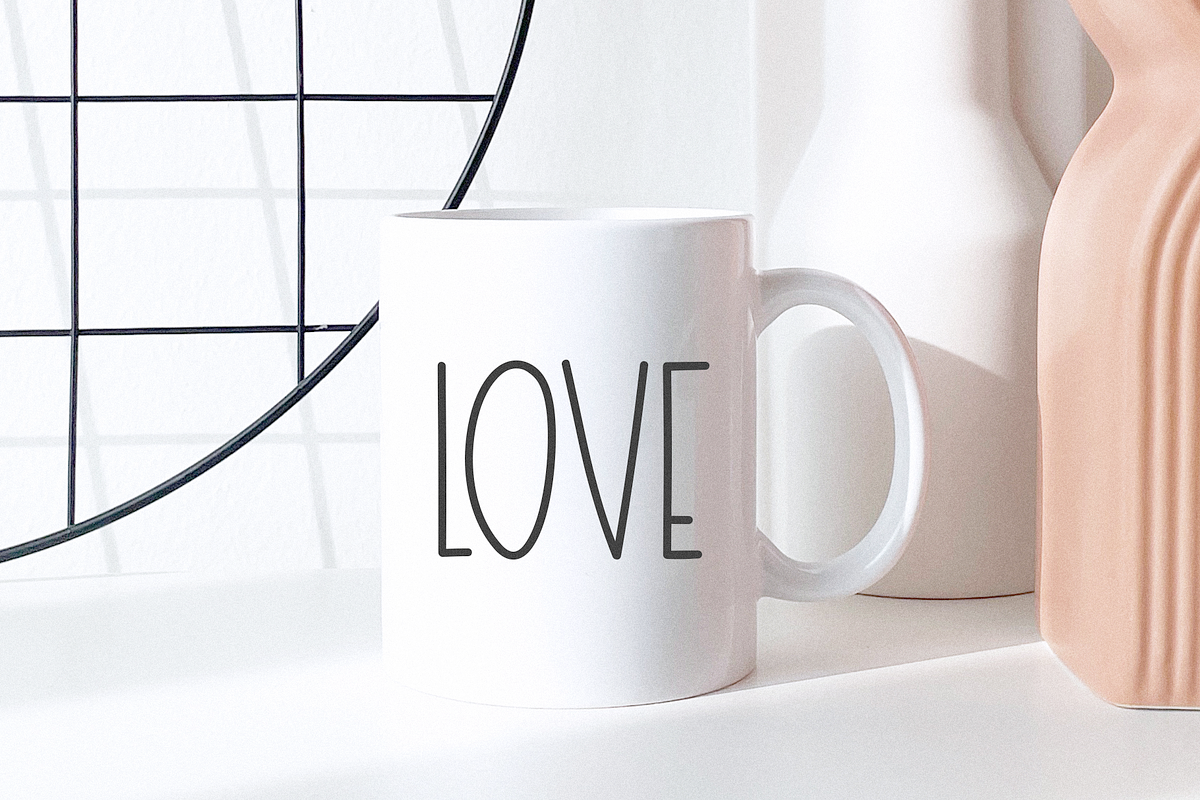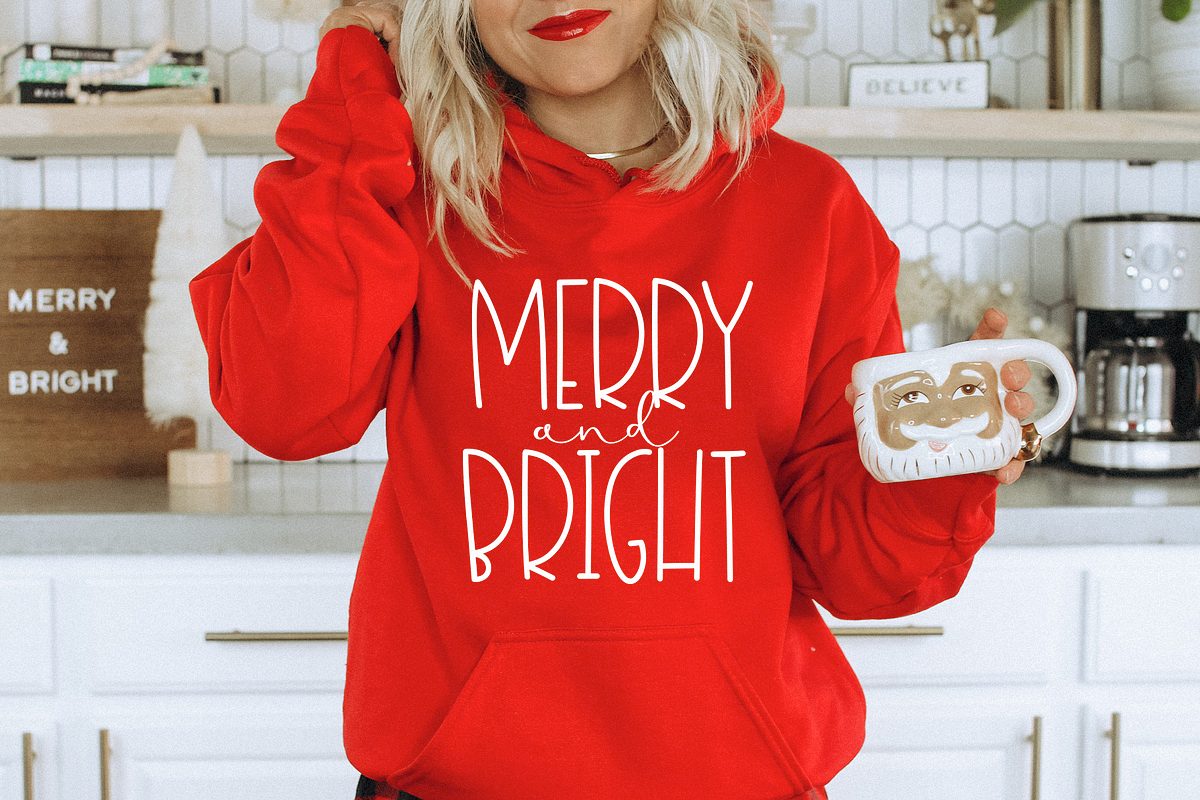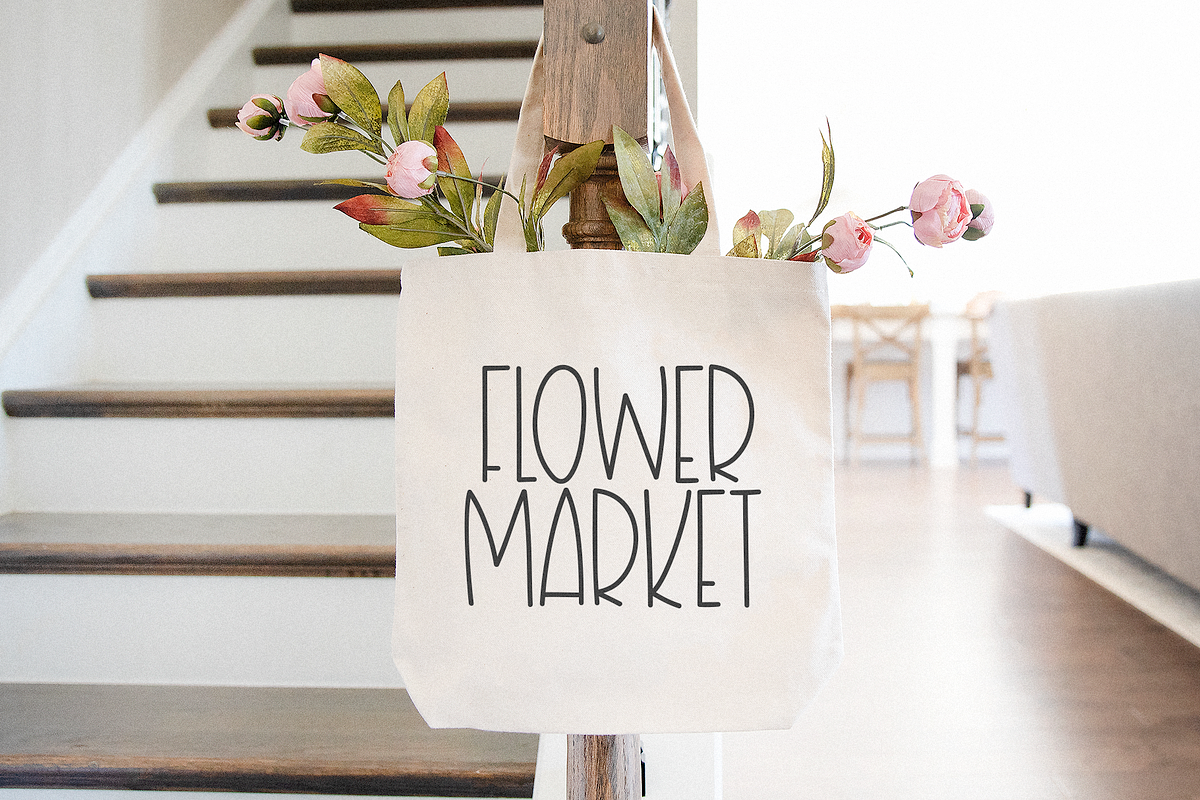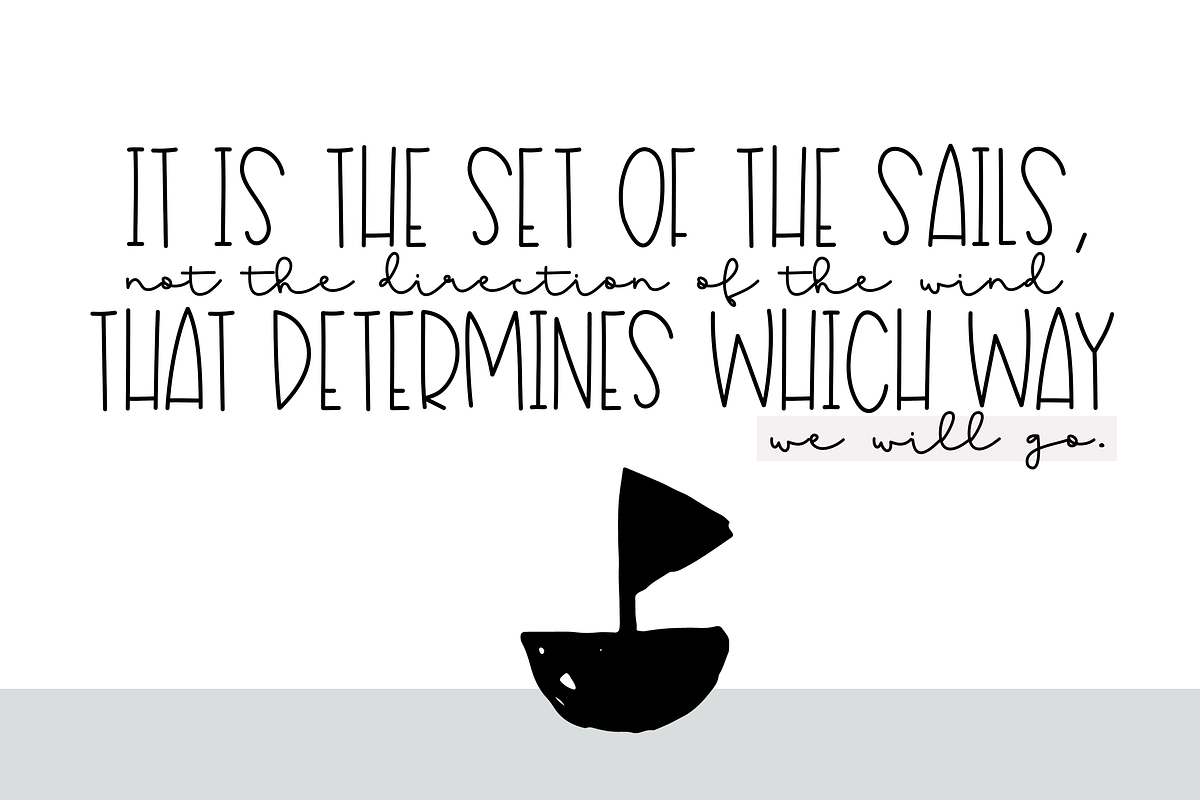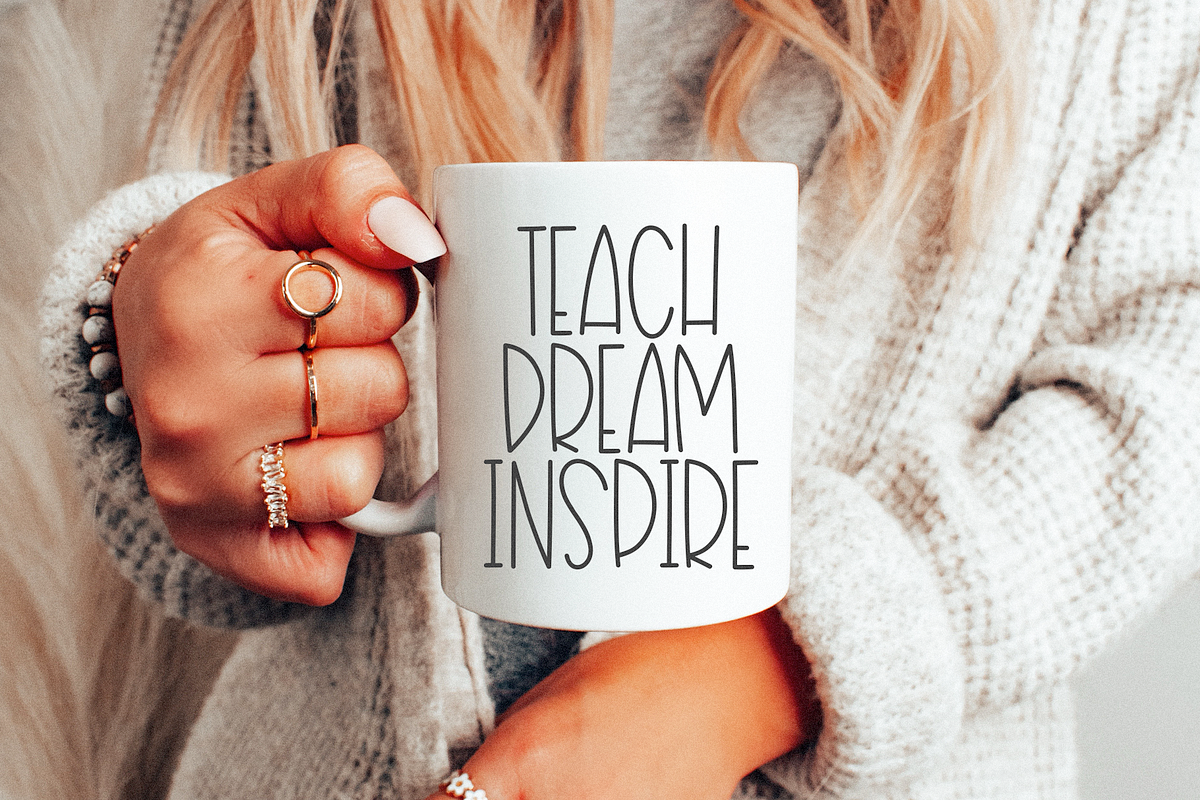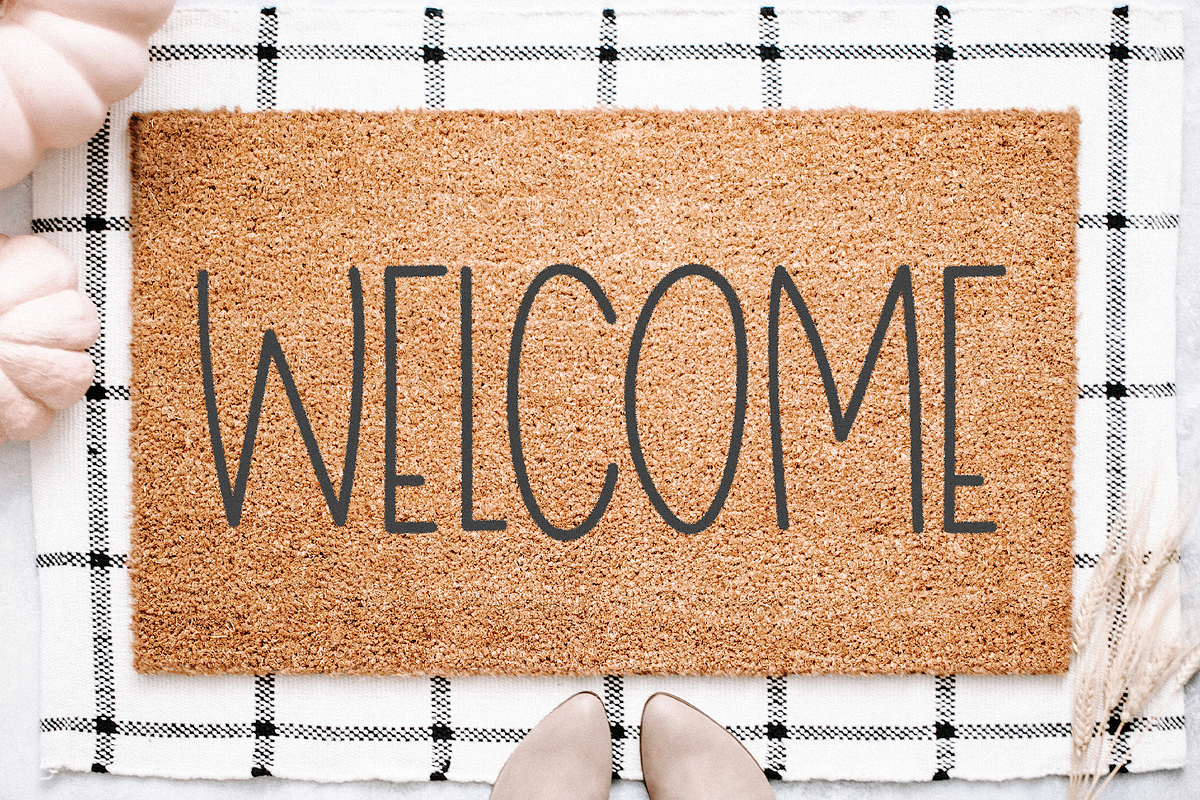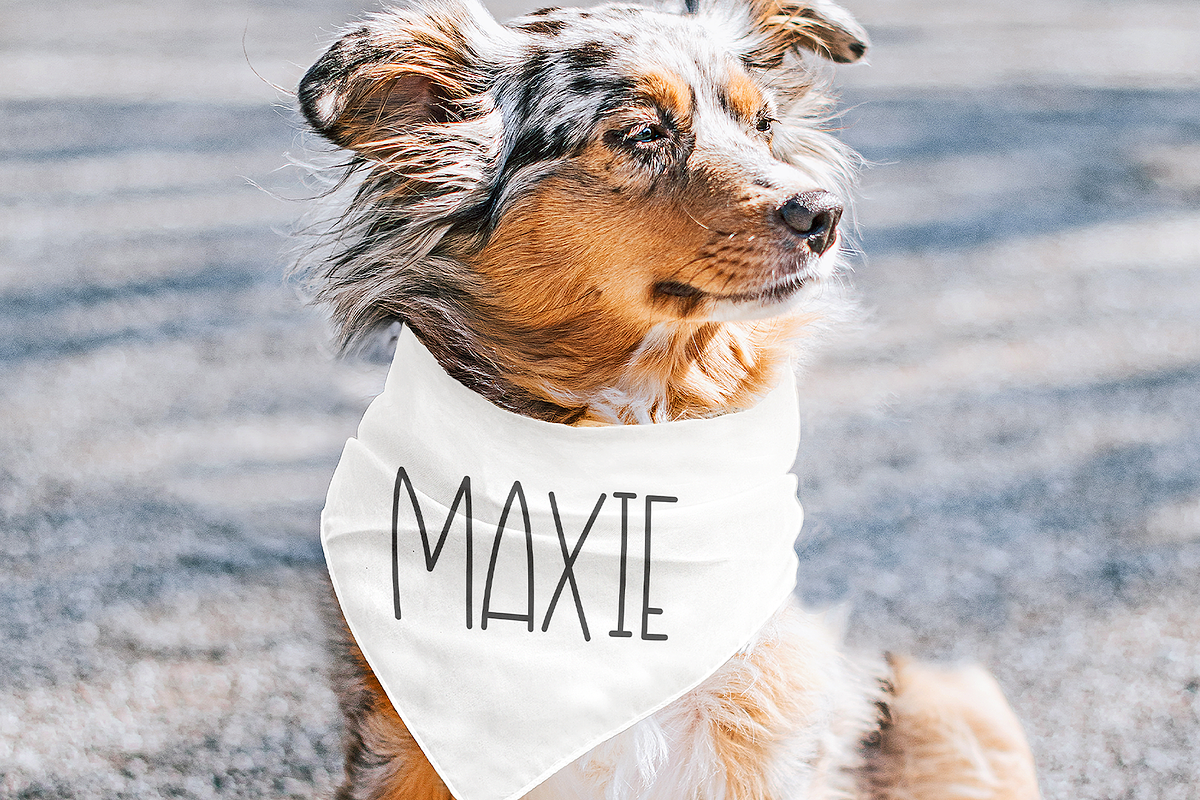
Sailboat - A Cute Handwritten Font
Sailboat is a fun font with cute letters. The capital letters and lowercase letters are the same for this font.
This font is perfect for quotes, headings, blogs, logos, invitations and more!
- The capital letters and lowercase letters are the same for this font.